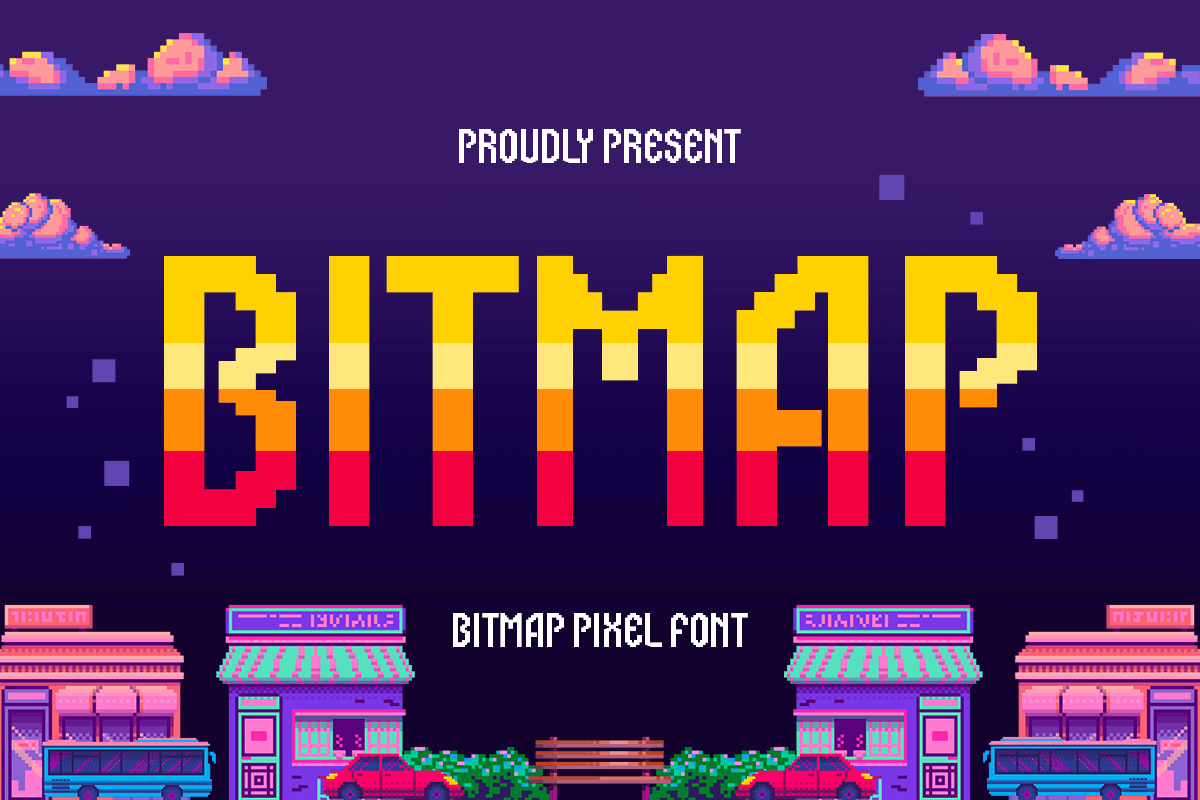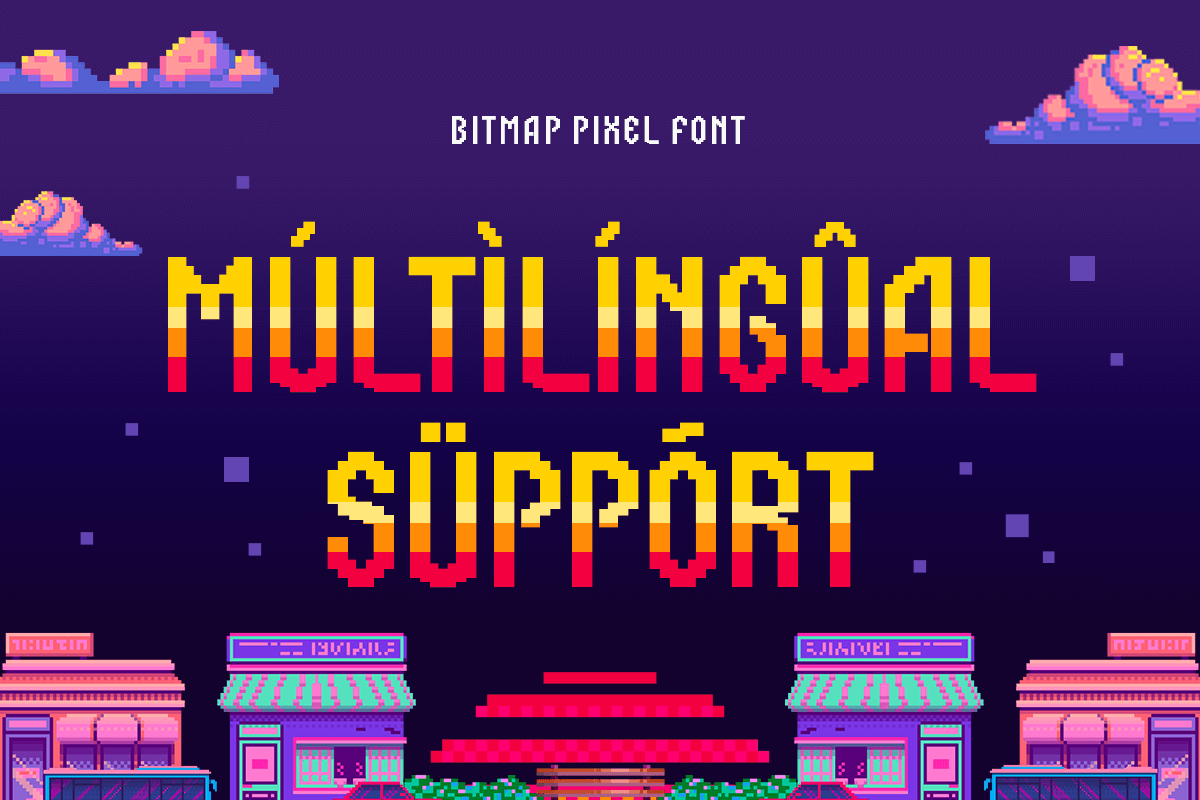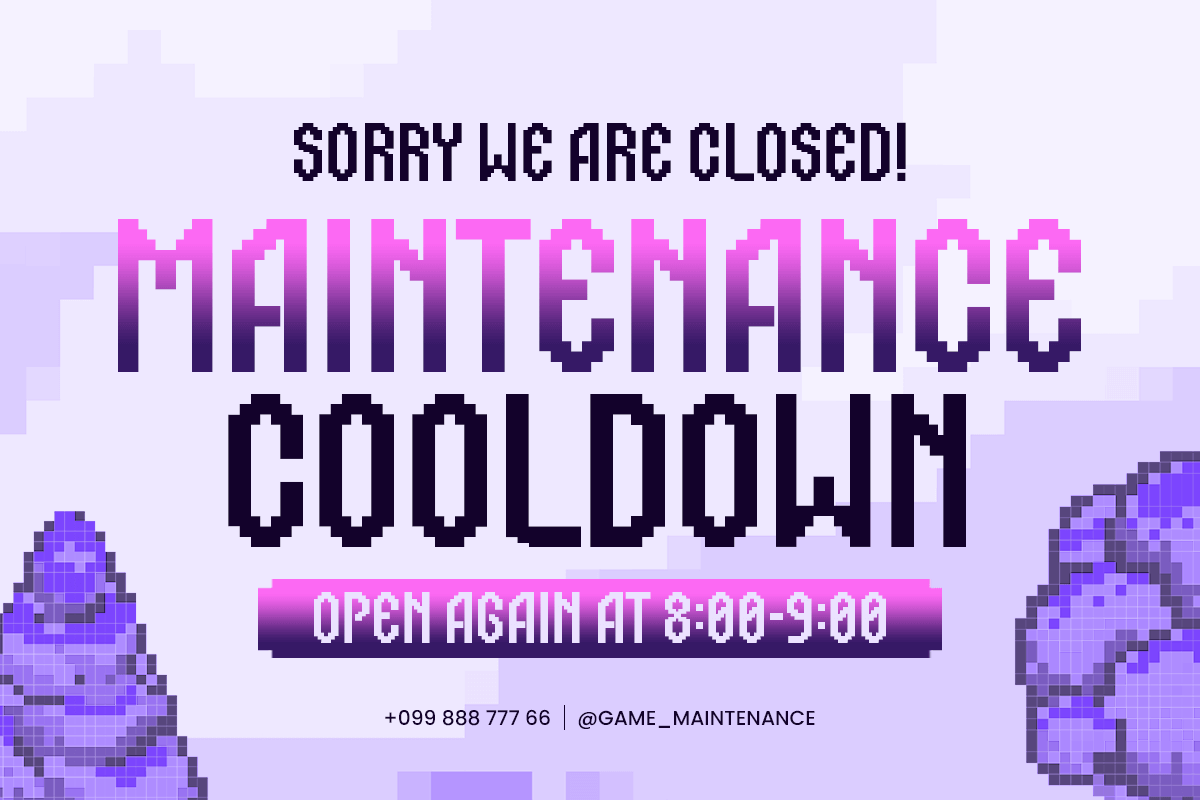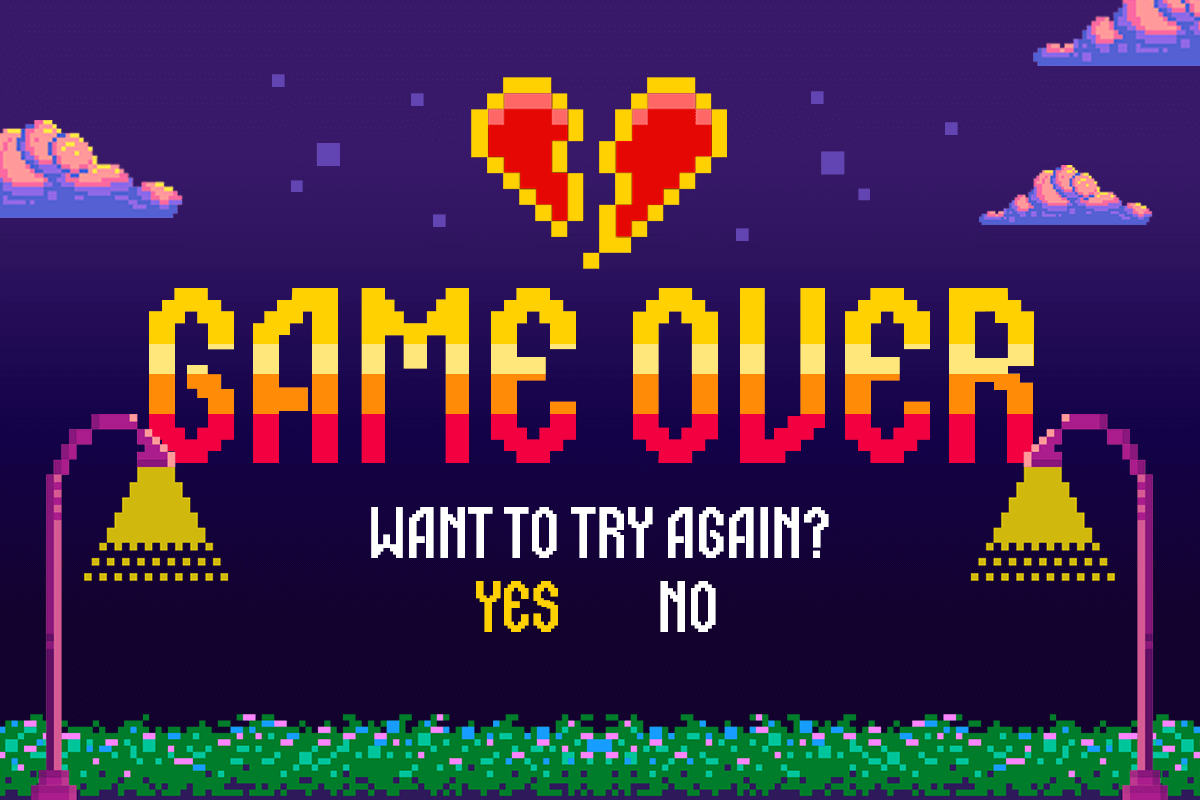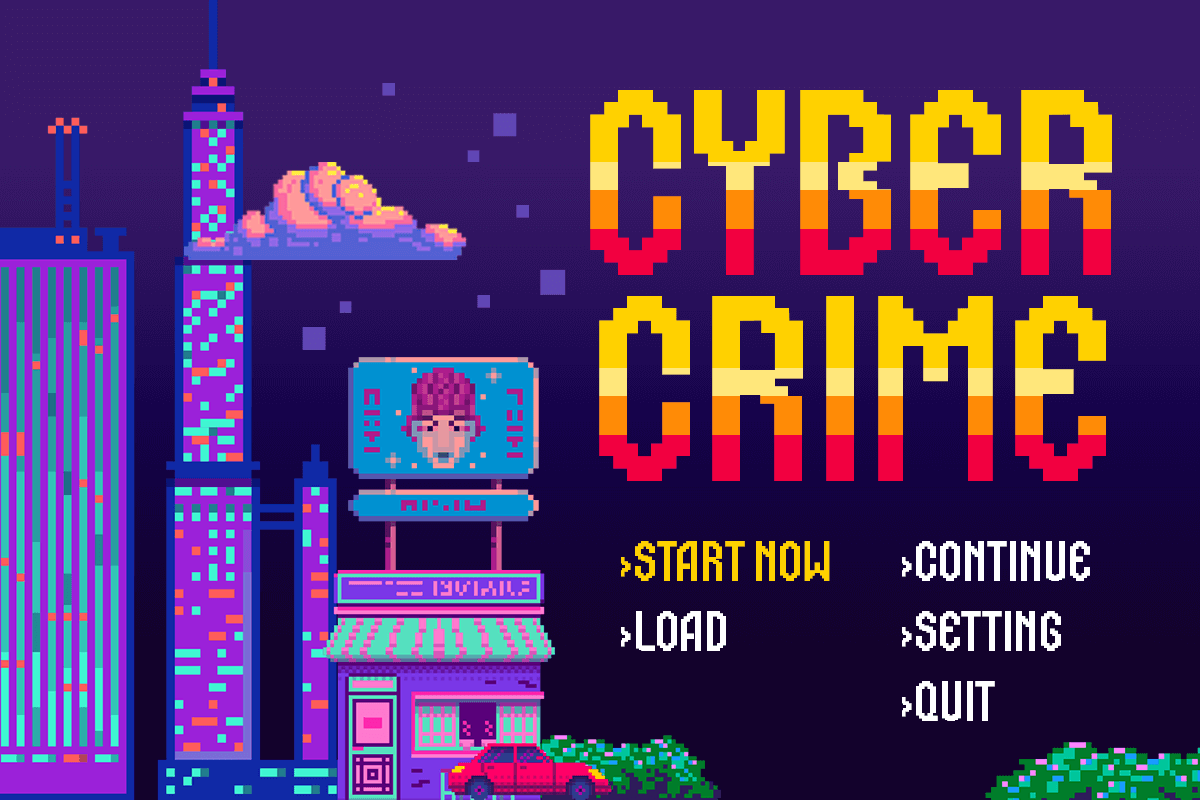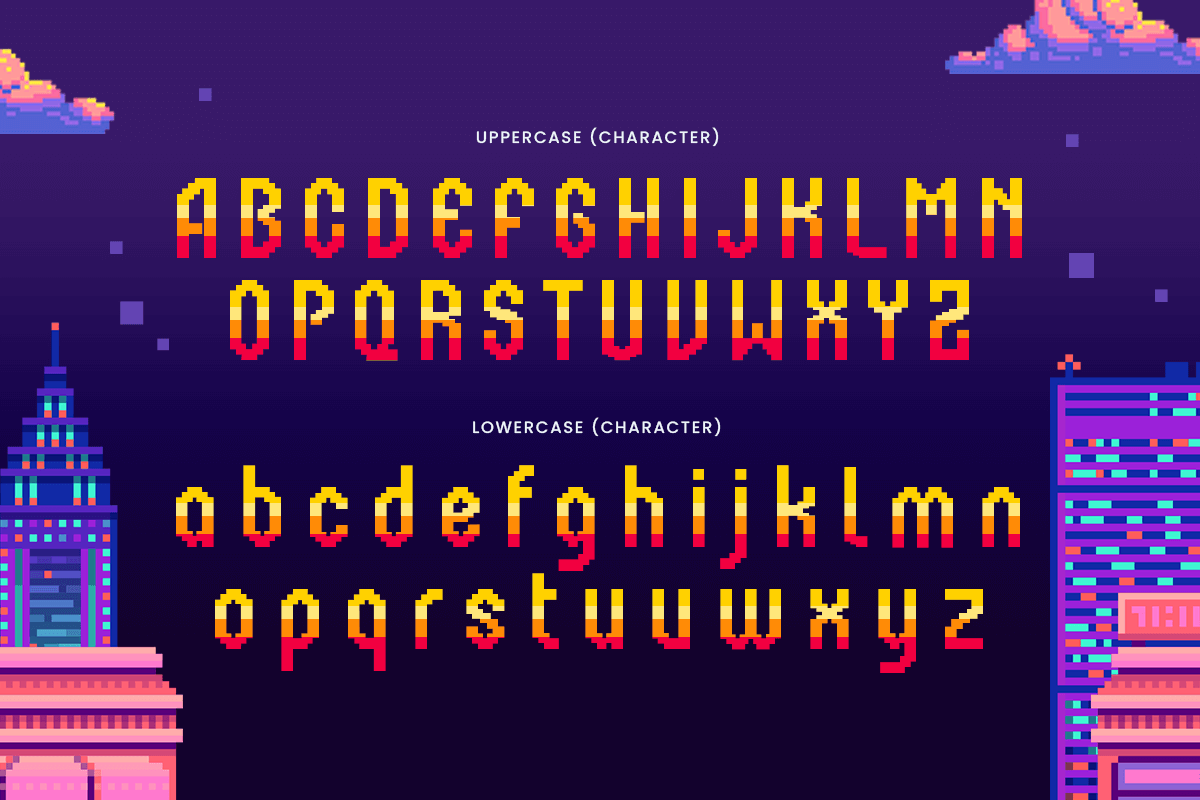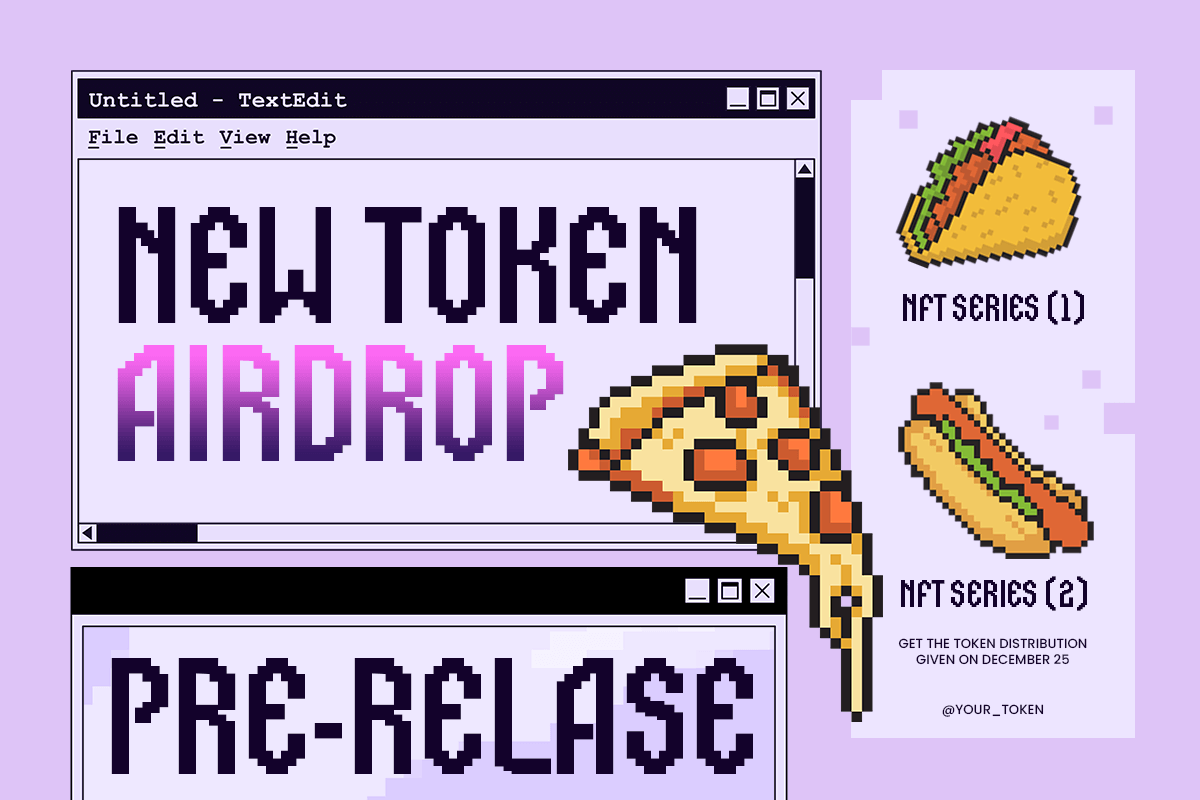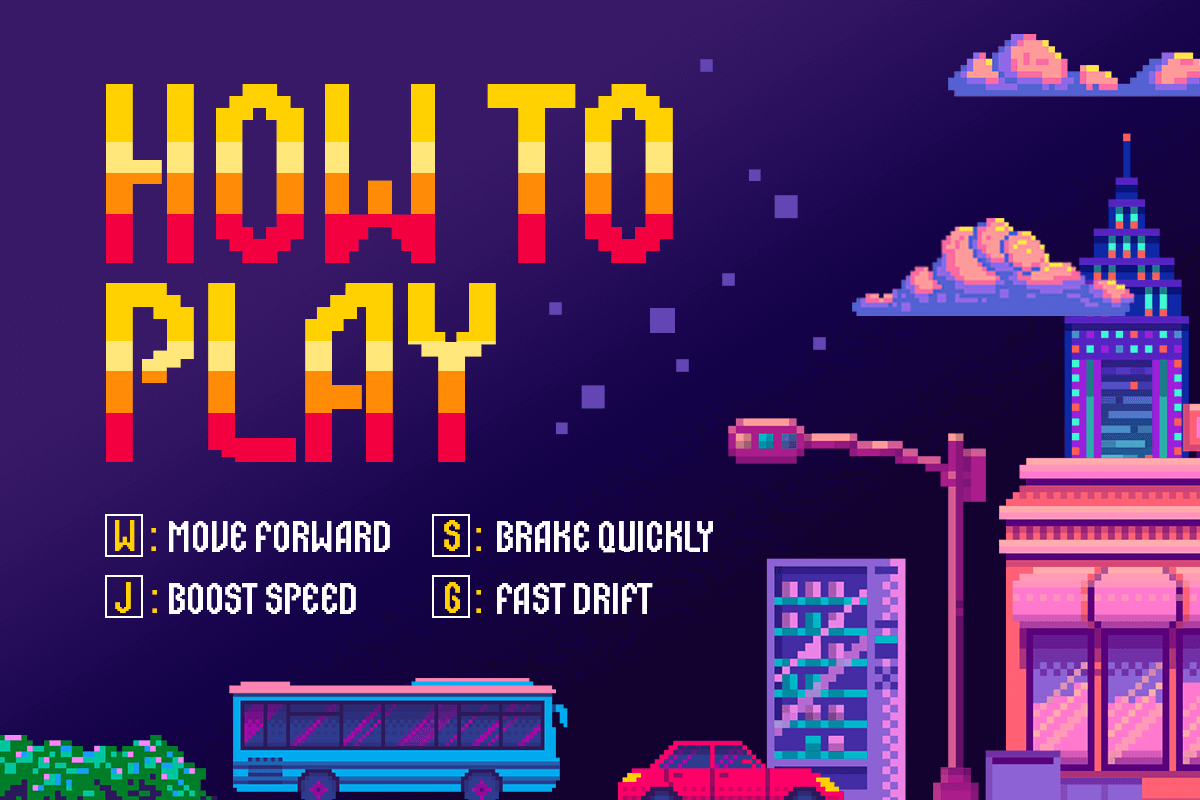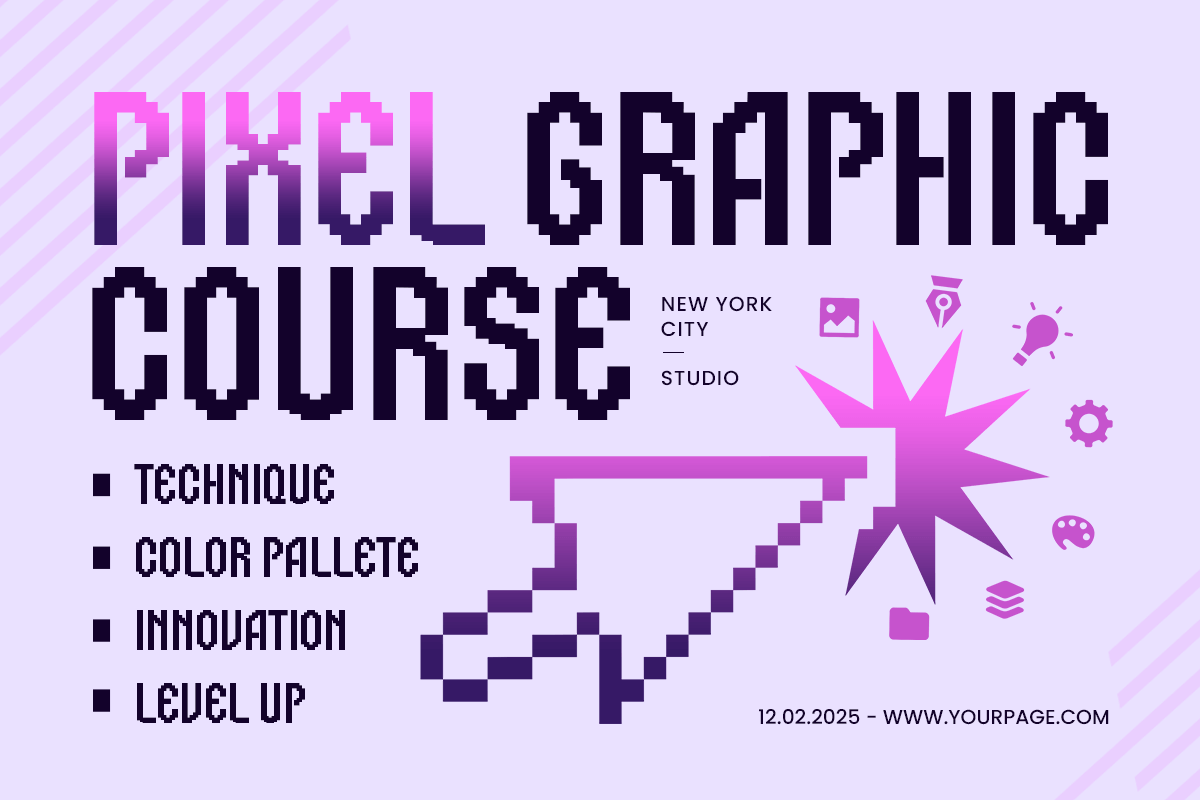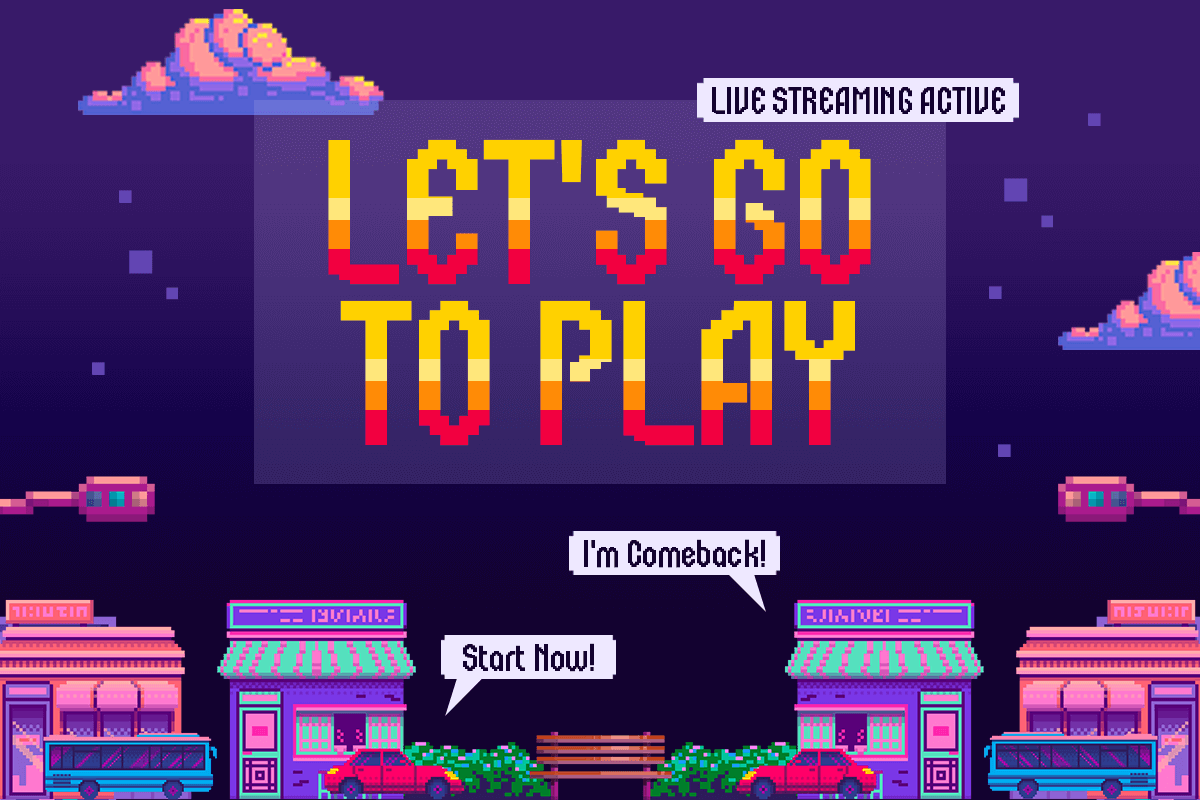
Bitmap – Pixel Font
Bringing Back the Pixelated Charm
Bitmap is a striking pixel font inspired by classic 8-bit and 16-bit era video games. Designed with precision and nostalgia in mind, this font captures the essence of old-school arcade graphics while maintaining a clean and modern aesthetic. Whether you’re working on game design, retro posters, or tech-inspired branding, Bitmap delivers the perfect pixelated charm to enhance your project.
Perfect for Gaming and Digital Creations
With its monospaced and blocky letterforms, Bitmap is a must-have for game developers, digital artists, and retro enthusiasts. It works seamlessly for UI elements, scoreboards, in-game dialogue, and promotional materials for indie games. The font’s structured design ensures excellent readability even at small sizes, making it a fantastic choice for pixel-perfect compositions in both print and digital formats.
Versatile, Nostalgic, and Timeless
Bitmap isn’t just a font—it’s a bridge between the past and the future. Whether you’re designing tech-related projects, coding-themed visuals, or retro-futuristic branding, this typeface brings authenticity to the table. Its pixelated yet structured look makes it ideal for logos, posters, streaming overlays, and more. Let Bitmap take your designs on a nostalgic journey back to the golden era of pixels!
Multilingual Characters available for:
Afrikaans, Albanian, Asu, Basque, Bemba, Bena, Breton, Chiga, Cornish, Dutch, English, Estonian, Filipino, Finnish, Friulian, Galician, German, Gusii, Indonesian, Irish, Italian, Kabuverdianu, Kalenjin, Kinyarwanda, Luo, Luxembourgish, Luyia, Machame, Makhuwa-Meetto, Makonde, Malagasy, Manx, Morisyen, North Ndebele, Nyankole, Oromo, Portuguese, Quechua, Romansh, Rombo, Rundi, Rwa, Samburu, Sango, Sangu, Scottish Gaelic, Sena, Shambala, Shona, Soga, Somali, Spanish, Swahili, Swedish, Swiss.